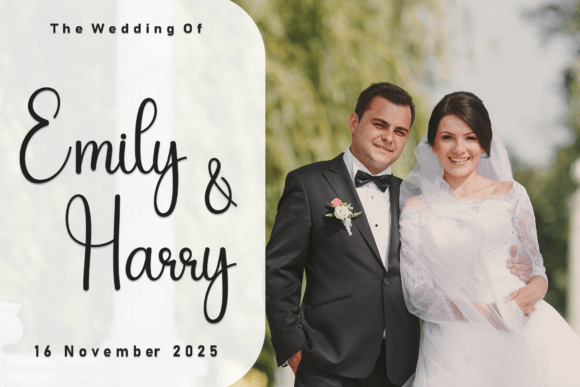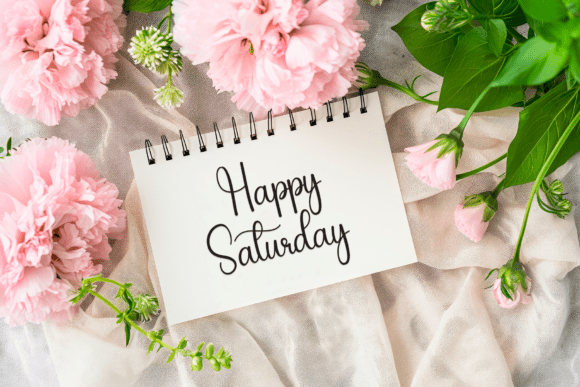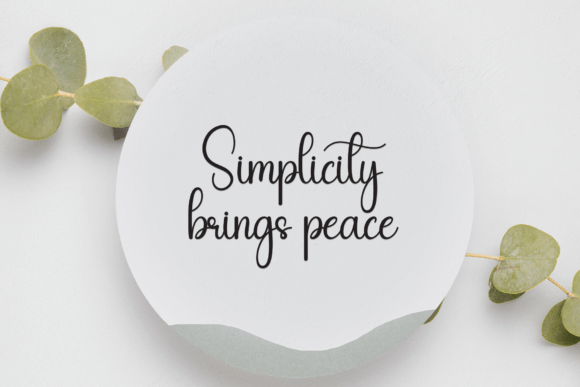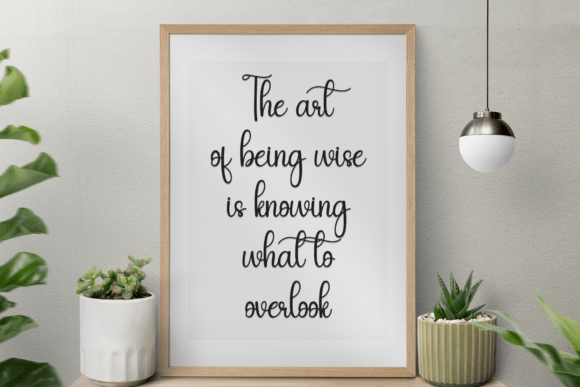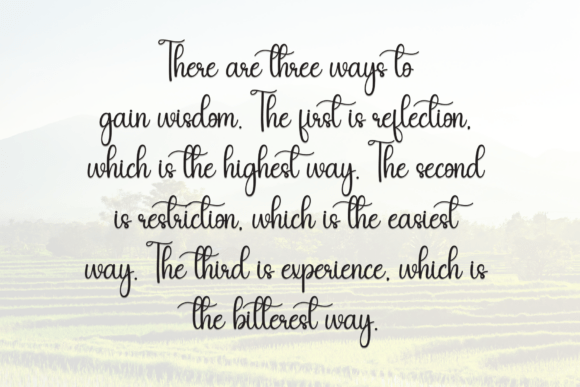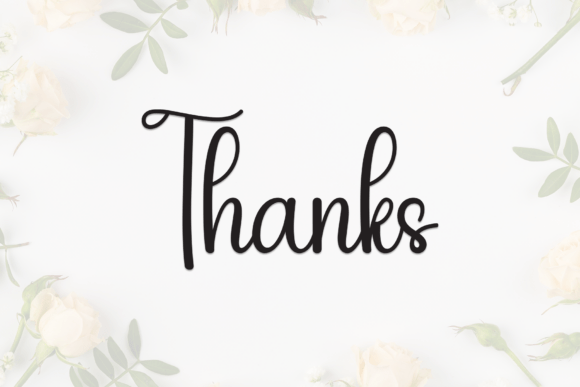
Discover the Charm of Angelina Font: A Delightful Handwritten Script
Are you looking for a typeface that embodies warmth, friendliness, and a touch of whimsy? Look no further than the Angelina font, a beautiful handwritten script that is sure to capture the hearts of designers and crafters alike. With its sweet and friendly charm, Angelina brings a sense of heartfelt intimacy to every project, making it perfect for a wide range of design applications.
The Characteristics of Angelina Typeface
Angelina typeface is a delightful handwritten script that boasts a unique blend of warmth, elegance, and playfulness. Its flowing lines and curves evoke a sense of romance and sophistication, while its friendly and approachable demeanor makes it perfect for creating designs that require a personal touch. With Angelina, you can add a light sprinkle of joy and personality to your creations, making them truly special and eye-catching.
Ideal Uses for Angelina Font
So, what are the ideal uses for the Angelina font? The possibilities are endless, but here are a few ideas to get you started:
- Romantic Wedding Invitations: Create beautiful, one-of-a-kind wedding invitations that set the tone for a magical and unforgettable day.
- Charming Greeting Cards: Add a personal touch to your greeting cards, making them perfect for special occasions such as birthdays, anniversaries, and holidays.
- Playful Stationery: Bring a smile to someone’s face with playful and colorful stationery that features the Angelina font.
- Elegant Branding: Use Angelina to create elegant and sophisticated branding materials, such as logos, business cards, and letterheads.
What Sets Angelina Apart
So, what sets Angelina apart from other typefaces? Here are a few unique features that make it a standout:
- Handwritten Charm: Angelina’s handwritten charm makes it perfect for designs that require a personal touch.
- Whimsical Elegance: With its flowing lines and curves, Angelina adds a touch of whimsical elegance to every project.
Why Choose Angelina Font?
With so many typefaces to choose from, why choose Angelina? Here are a few compelling reasons:
- Versatile: Angelina is a versatile typeface that can be used for a wide range of design applications, from romantic wedding invitations to elegant branding materials.
- Unique: With its handwritten charm and whimsical elegance, Angelina is a unique typeface that will set your designs apart from the rest.
Tips for Using Angelina Font
Here are a few tips for using Angelina font:
- Experiment with Different Sizes: Experiment with different sizes to find the perfect fit for your design.
- Pair with Other Fonts: Pair Angelina with other fonts to create a unique and eye-catching design.
- Use Decorative Elements: Take advantage of Angelina’s decorative elements, such as swashes and flourishes, to add a touch of elegance to your design.